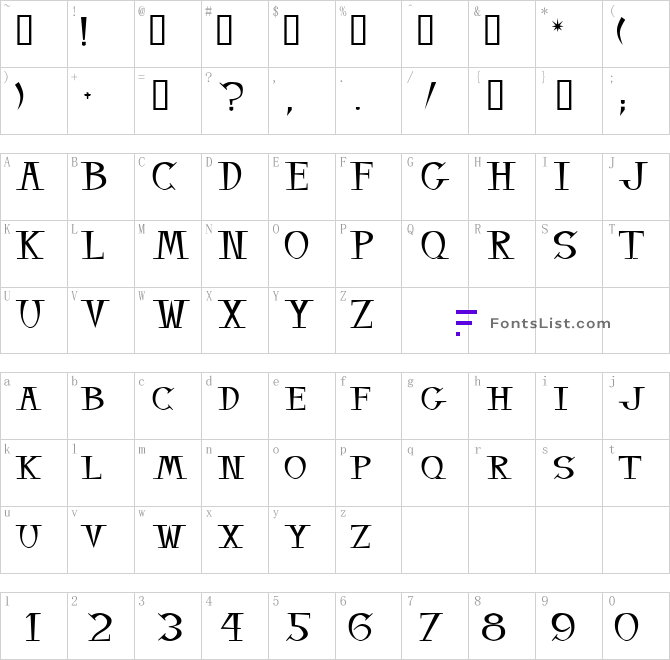
- Font Name:Balsamo
Balsamo.ttf is a very beautiful artistic font, Balsamo.ttf is widely used in the design and printing of various books and pictures,Balsamo.ttf has a strong visual impact,Balsamo.ttf is a commonly used font in newspapers, magazines and books, and is used in posters, e-commerce Poster design, store design, logo design, font design and other fields.Balsamo.